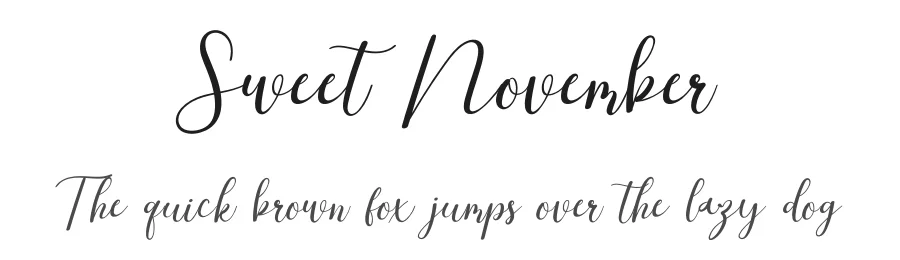
About Amstallova Font
A Font by TheSundoro Std
Amstallova feels incredibly elegant and flowing. It looks stunning on wedding invitations, thank you cards, quotes, greeting cards, logos, business cards and every other design which needs a handwritten touch. It features a varying baseline, smooth lines, gorgeous glyph and stunning alternates.
Amstallova Font is a script font that shines as a display or heading face. Pair it with a clean sans-serif or serif font for body text β the contrast creates a clear hierarchy while the two styles stay balanced and easy to read.